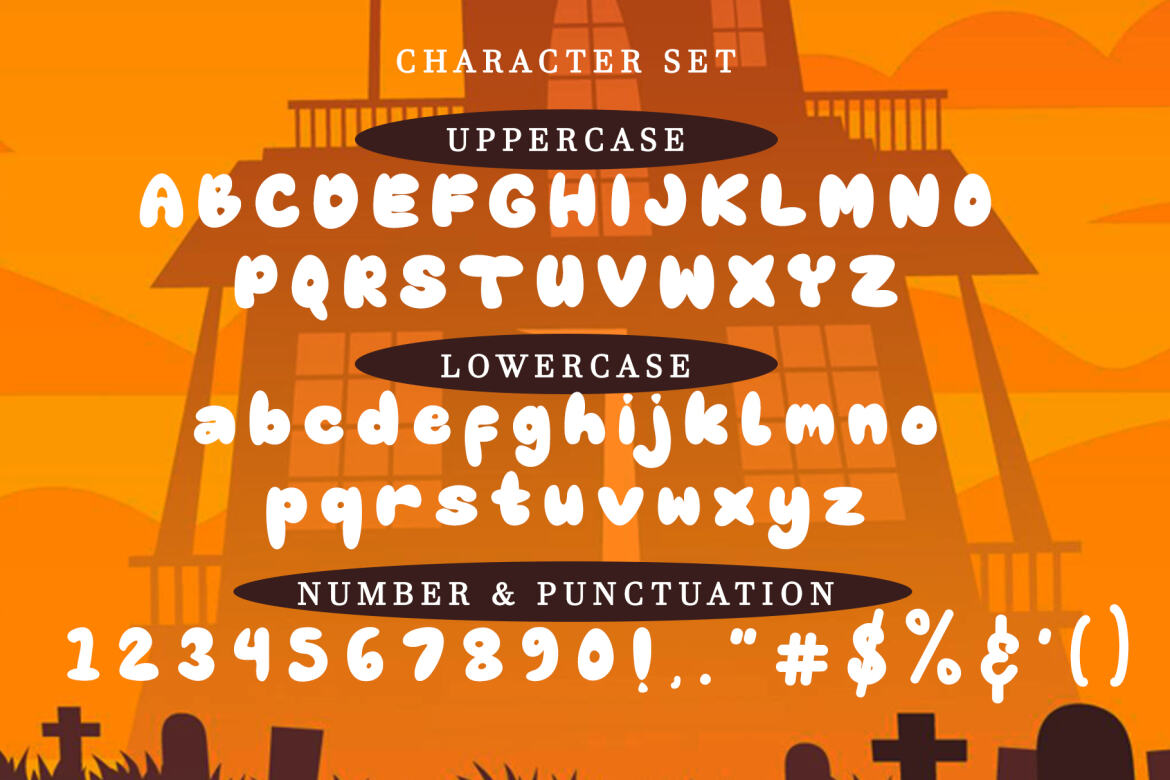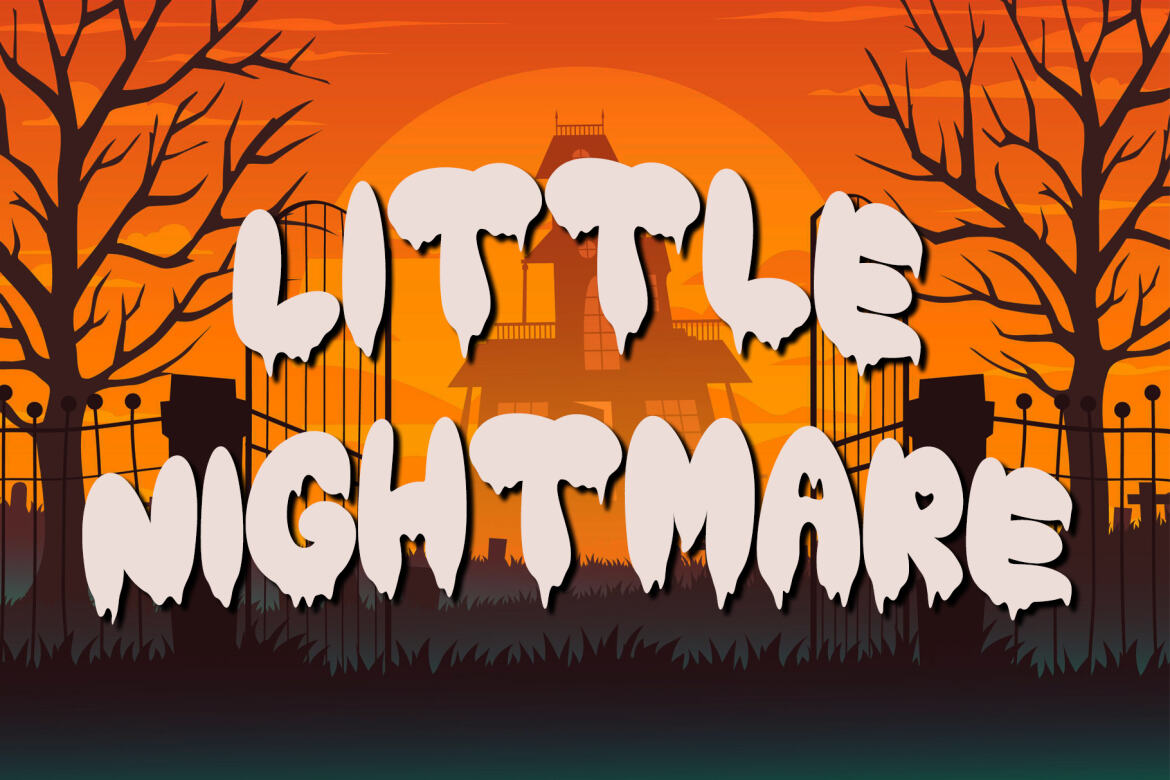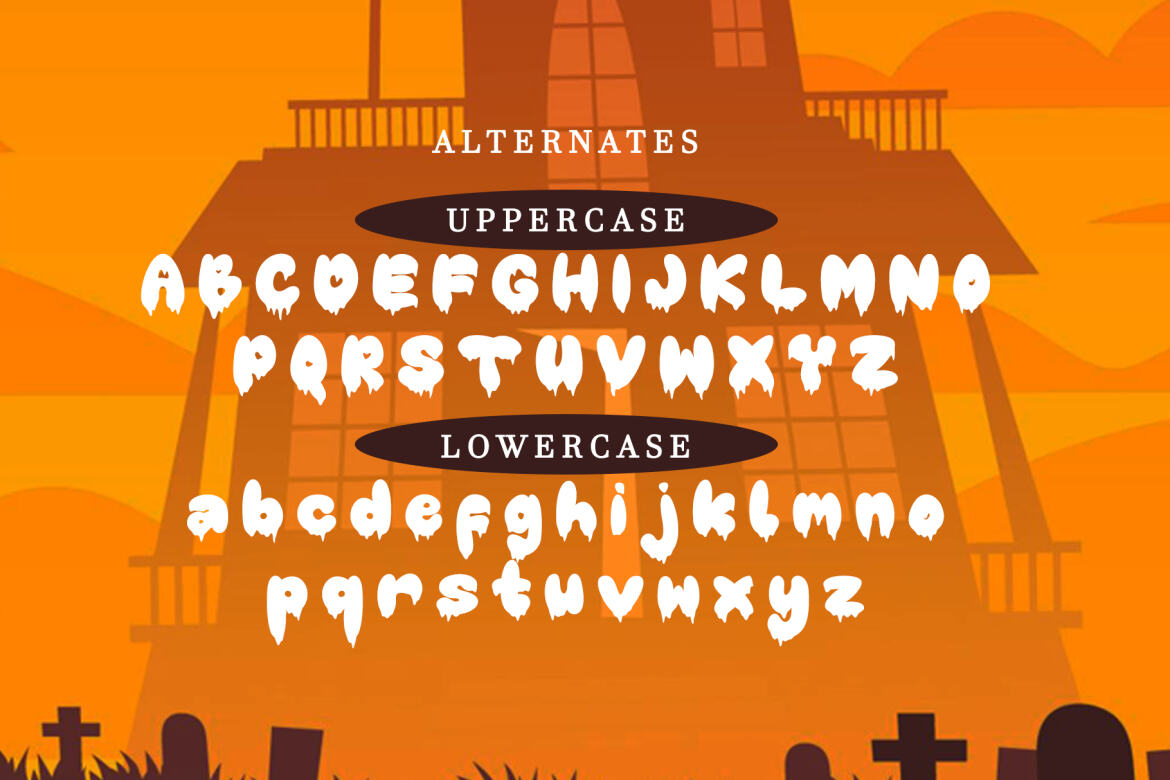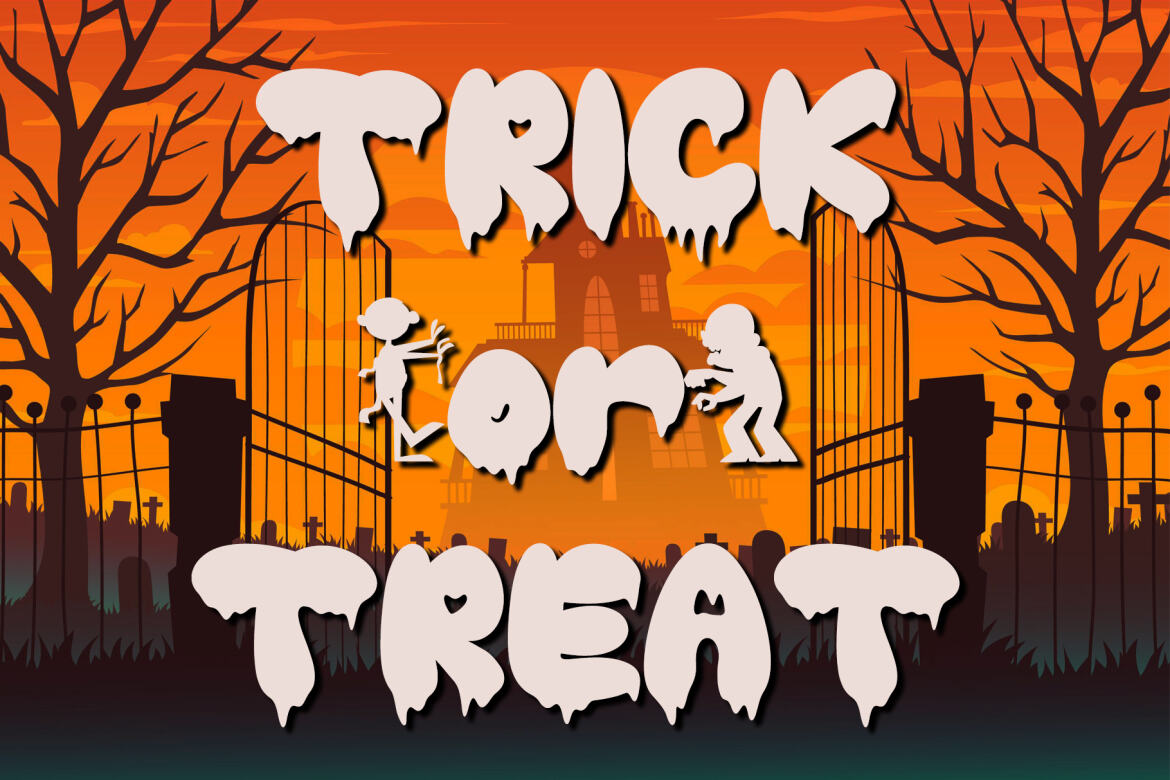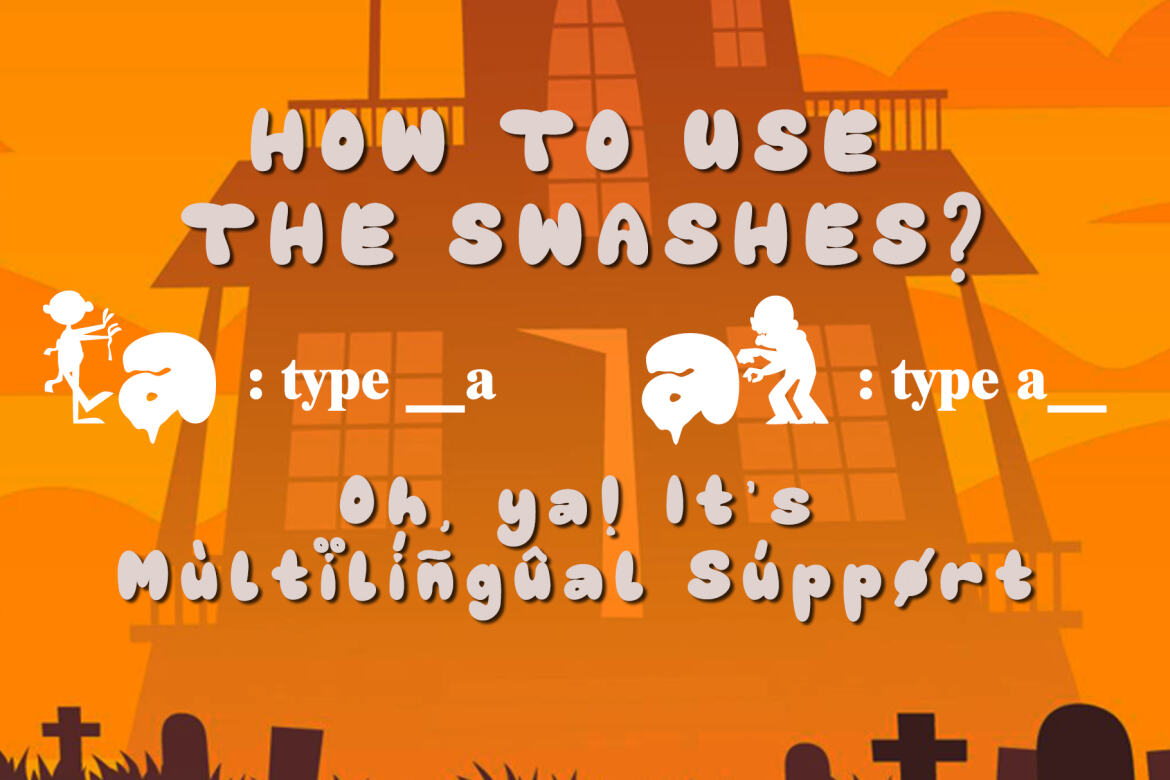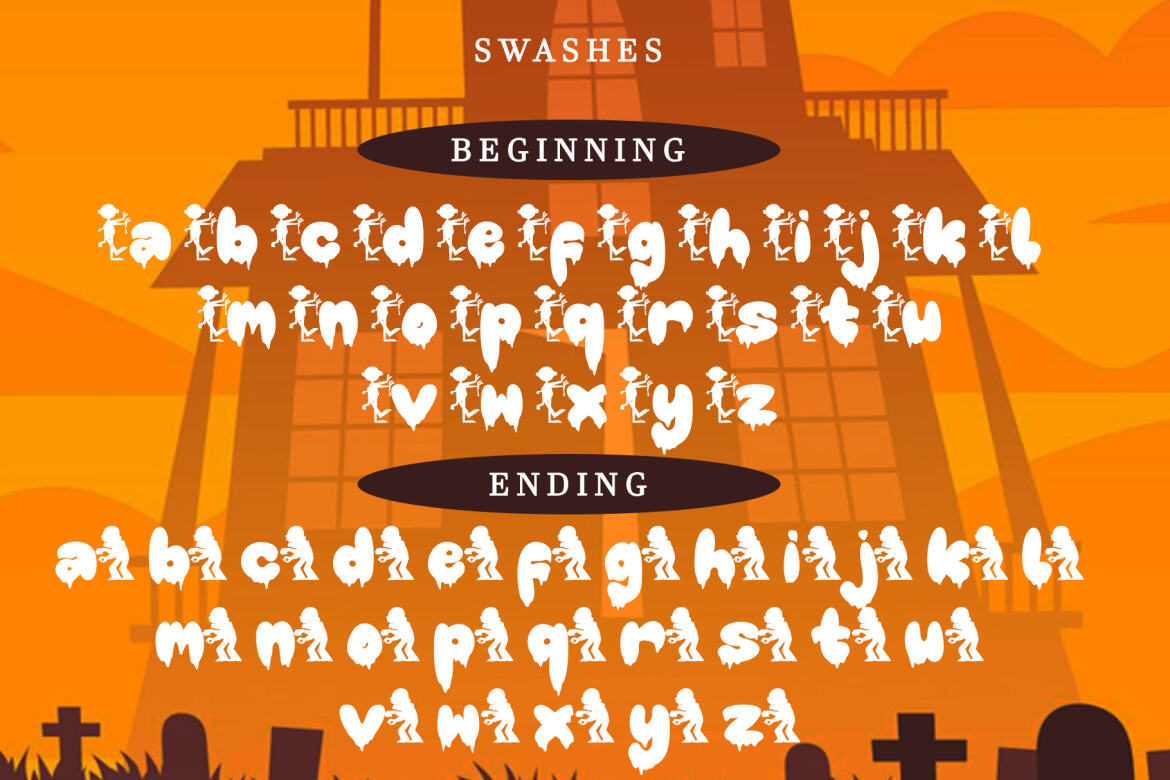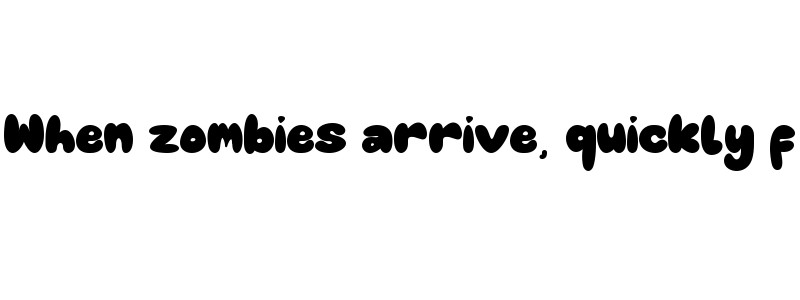
Cutie Zombie
Cutie Zombie is a halloween theme display font and it's perfect for cards, poster, blog design, custom art, quote, and many more!
• beginning and ending swashes
• halloween ornaments
• special ligatures